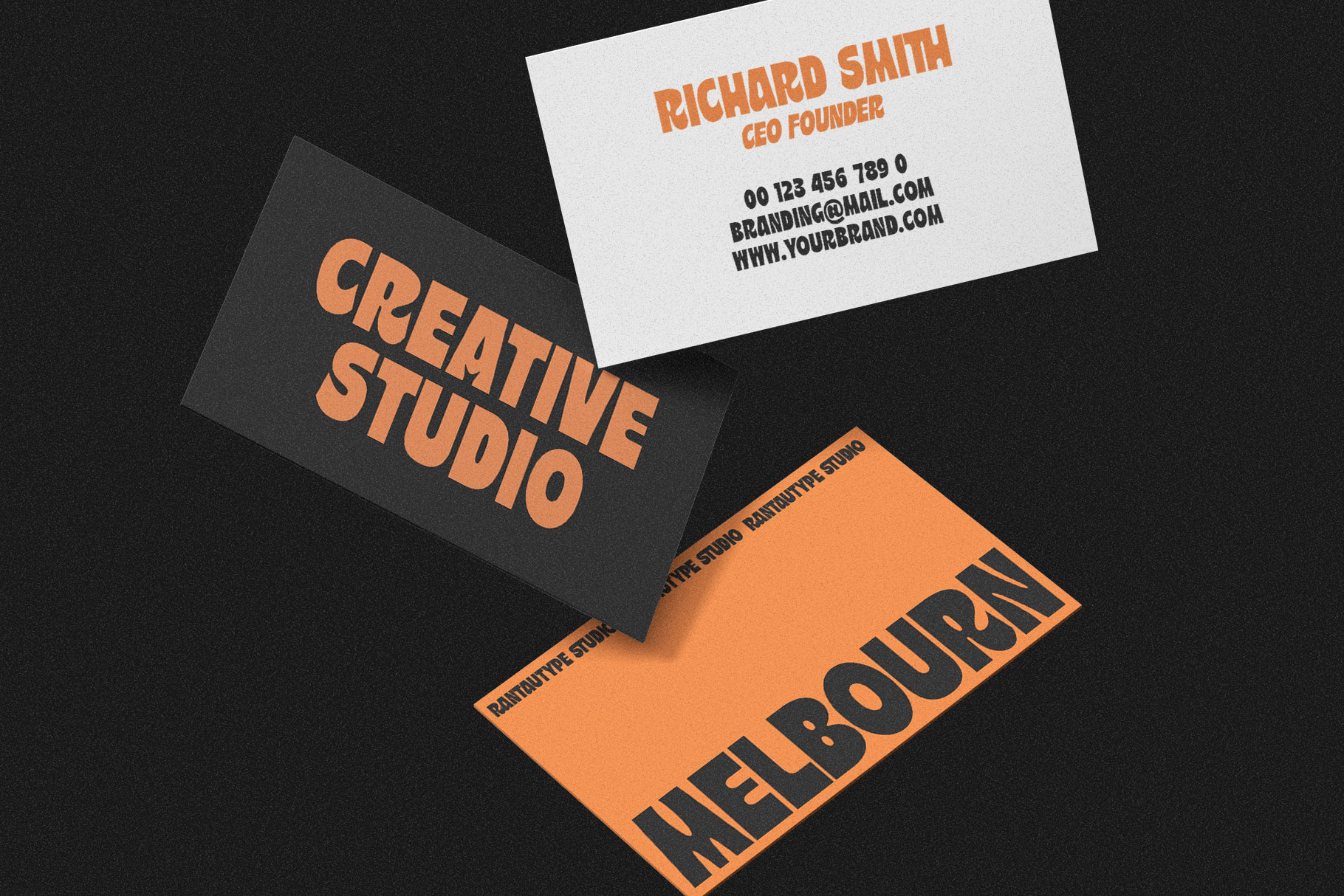
Sorentia Bold Display Font
Sorentia is bold display sans font with chunky confident typographic. Sorentia is a perfectly choice for any creative endeavor, creating, modern, lifestyle design such as logotype, title, cover, branding, invitations, wedding designs, display and magazine, social media posts, advertisements, printed quotes, product packaging, corporate brand, product designs, labels, photography, watermarks, special events and any other project with modern touch.